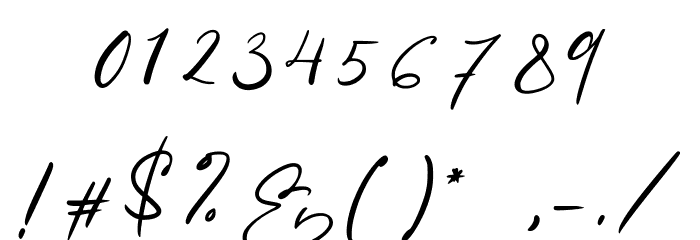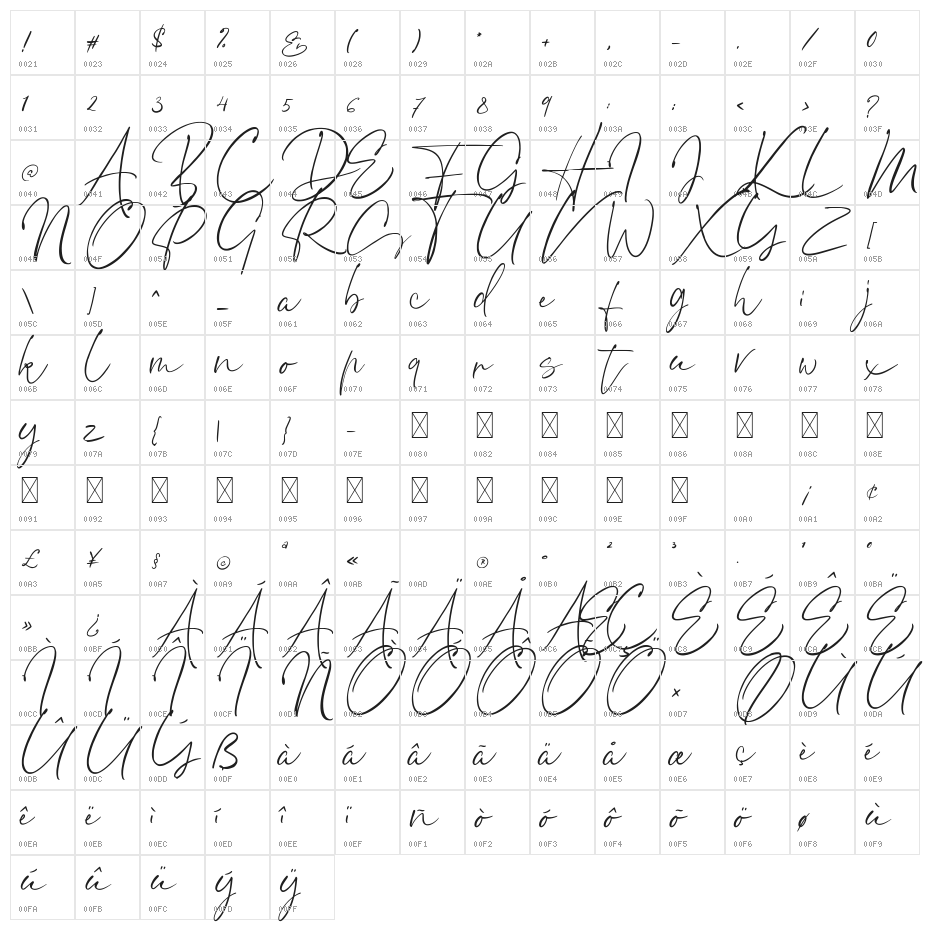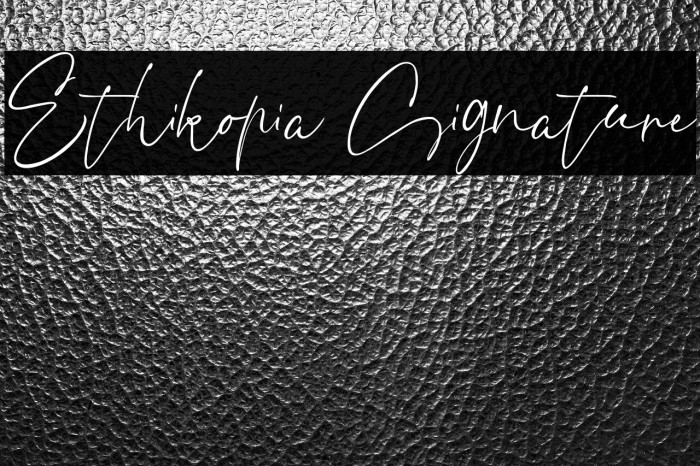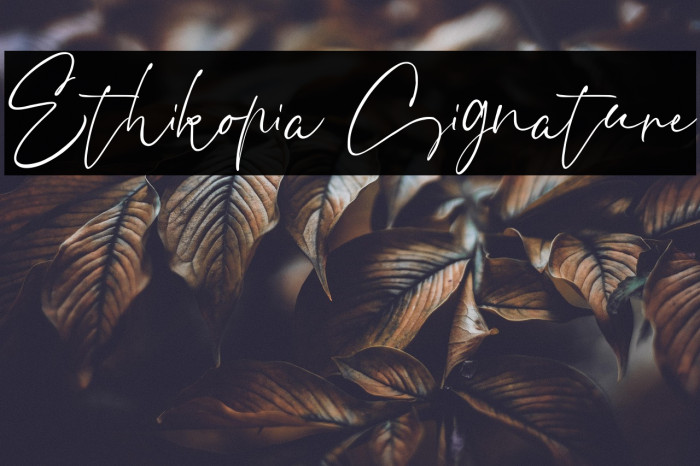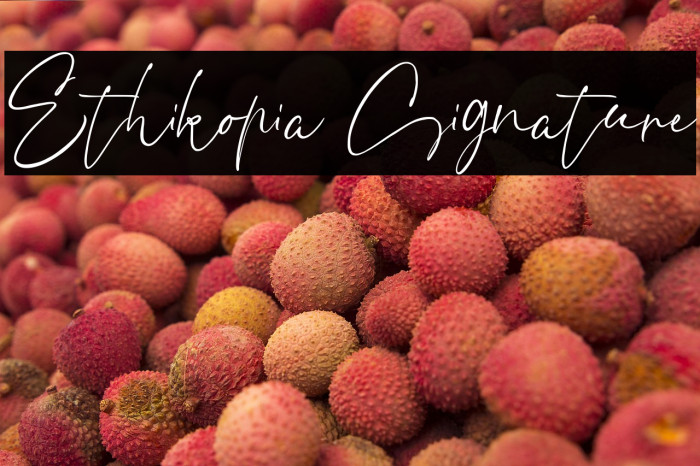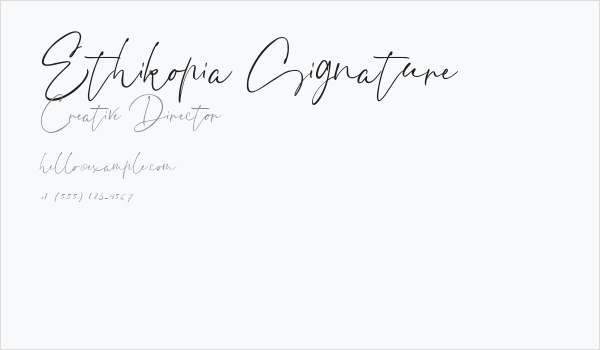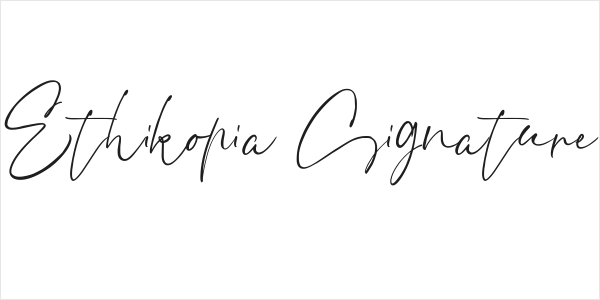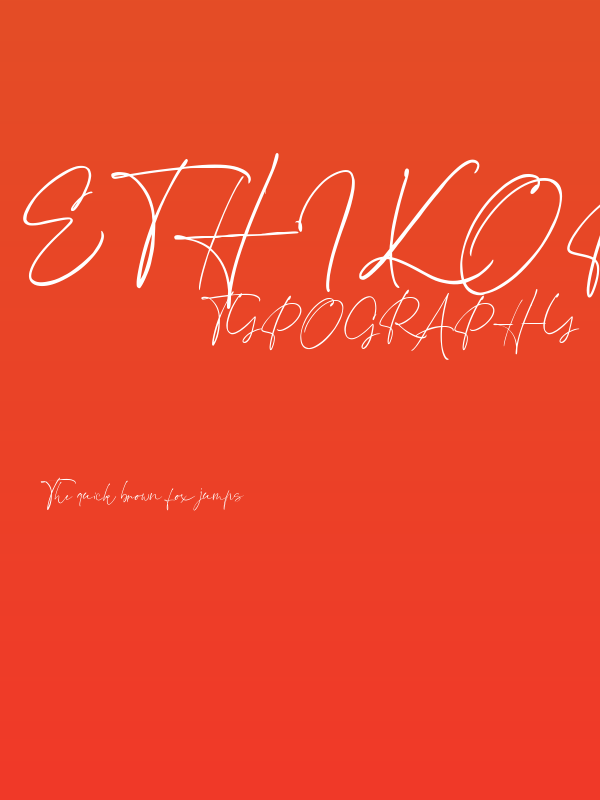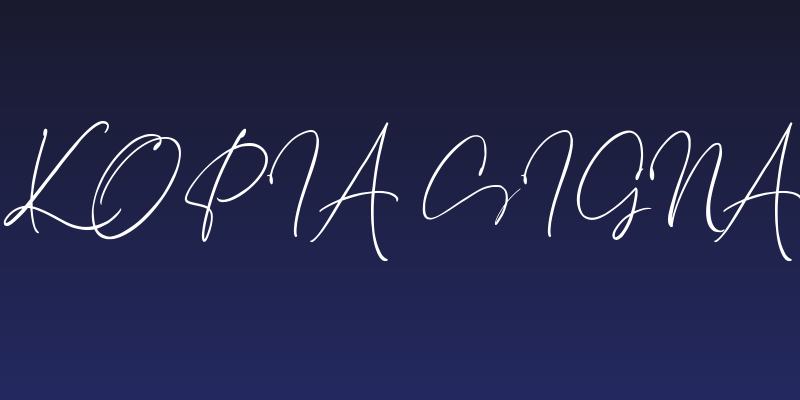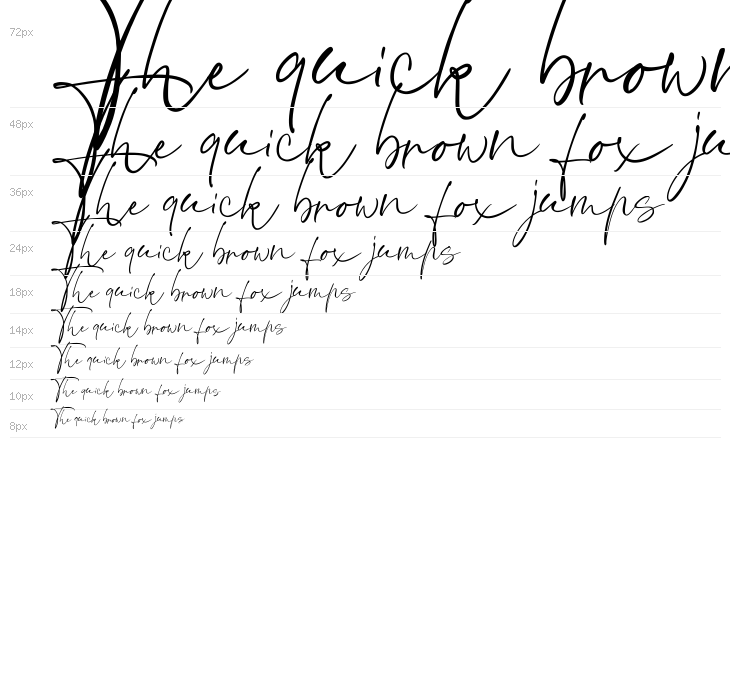
Ethikopia Signature Font
Ethikopia Signature Description
This font exudes a sophisticated and elegant handwritten style, characterized by its fluid and graceful strokes. The letters are connected in a cursive manner, giving it a natural and organic flow. The uppercase letters are tall and slender, while the lowercase letters maintain a consistent rhythm and balance. The numerals and special characters complement the overall aesthetic, adding to its versatility. This font is perfect for projects that require a personal touch, such as invitations, greeting cards, or branding materials. Its unique style captures attention while maintaining readability.
| Overall Style | Elegant, Sophisticated |
| Proposed Projects | Ideal for invitations, greeting cards, branding materials, and personal projects. |